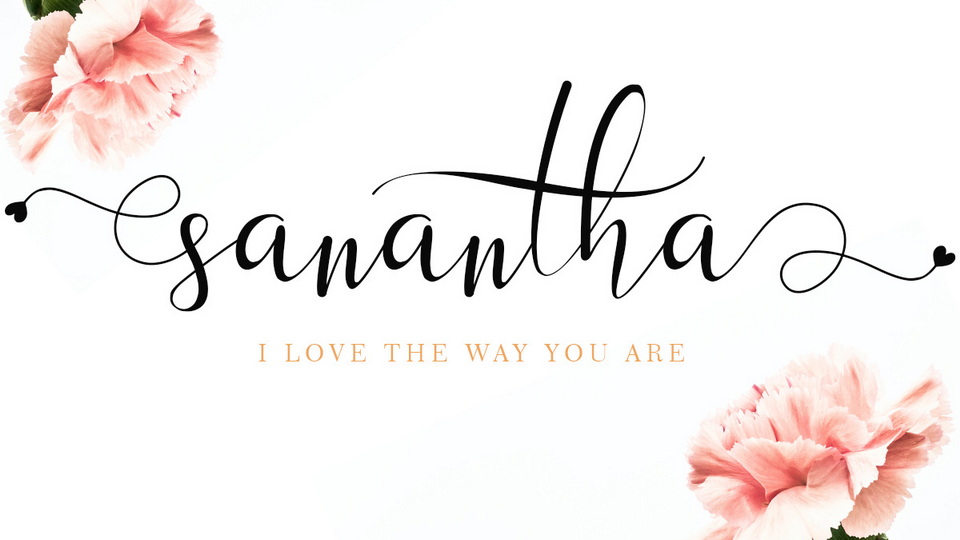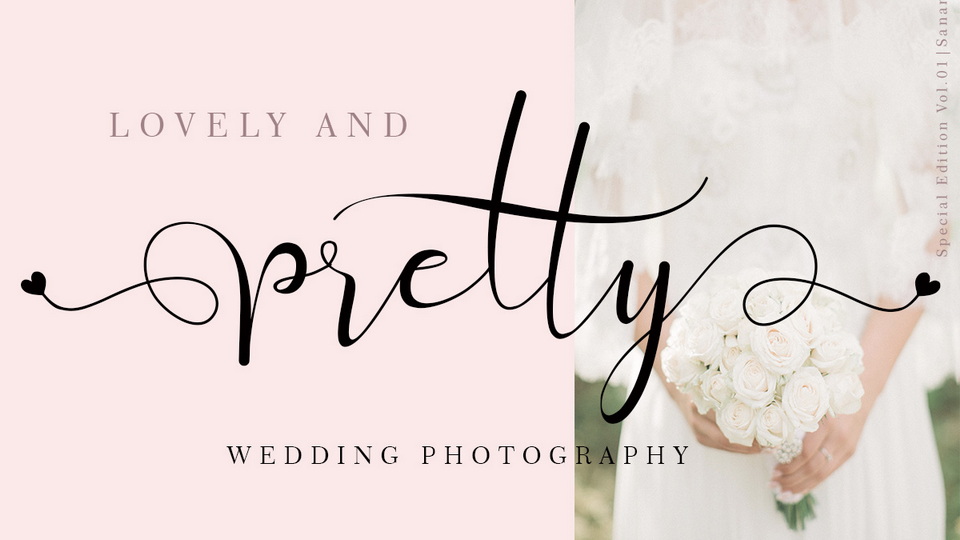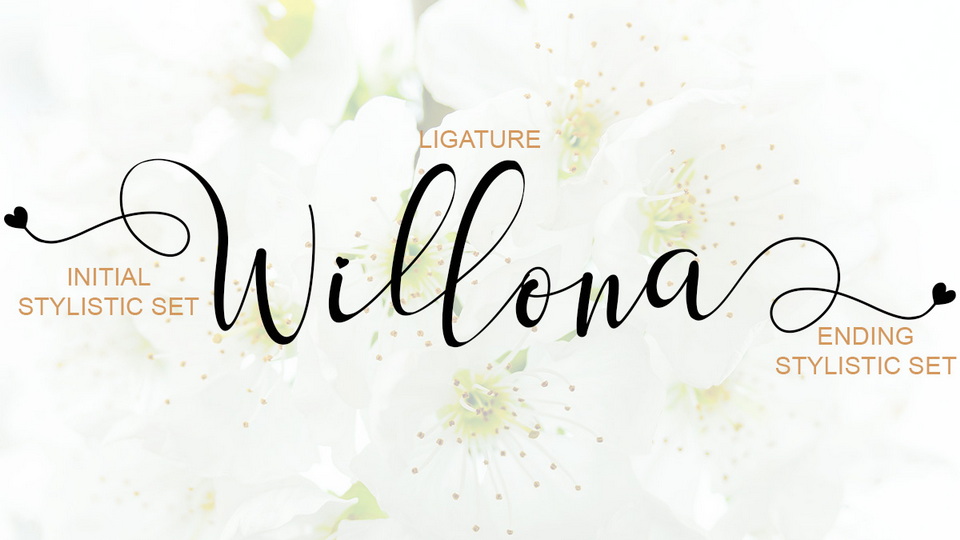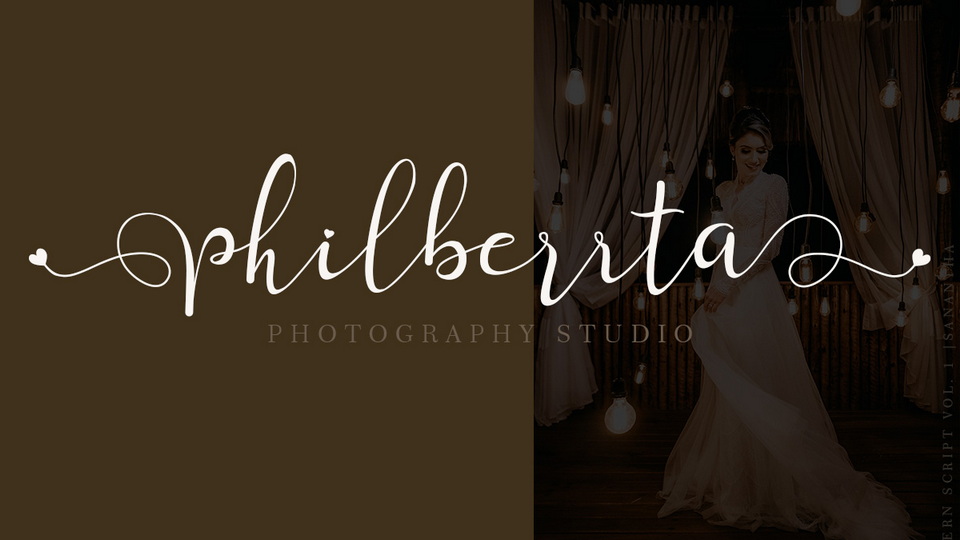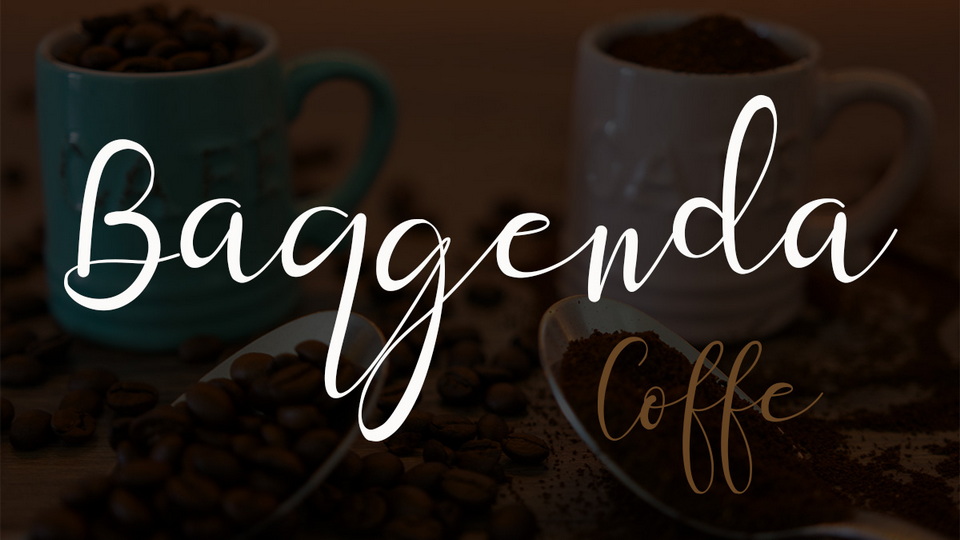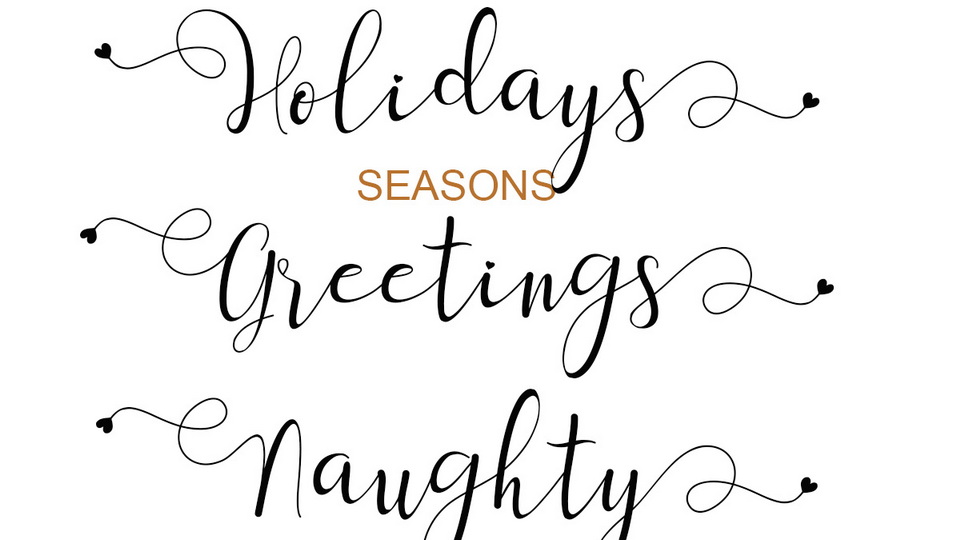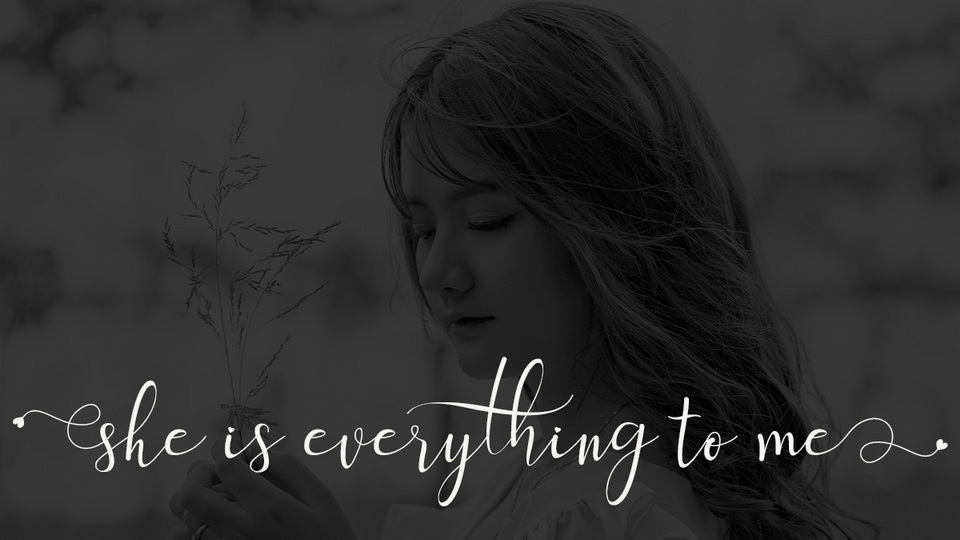
Sanantha is a very beautiful handwritten font made with great love. This font can make your work more romantic and elegant.
Sanantha is perfect for marketing your products, making quotes, weddings, invitation cards, logos, branding and status updates on social media. Can also be used to beautify your beautiful moments.